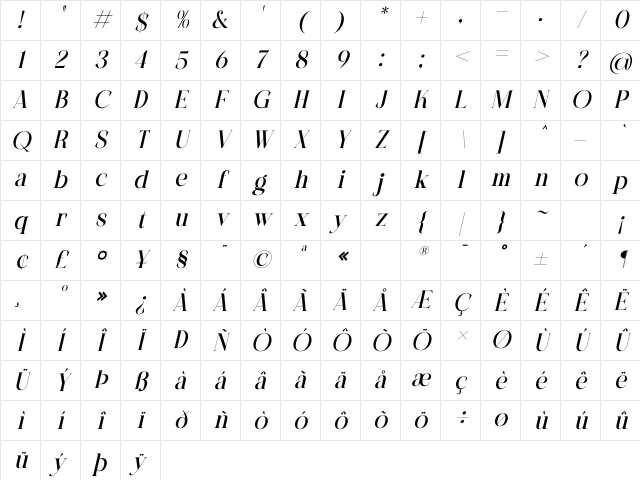
CHELON is a composed and adaptable typeface that performs quietly and consistently across a wide range of design contexts. The slanted form adds forward momentum and visual energy.